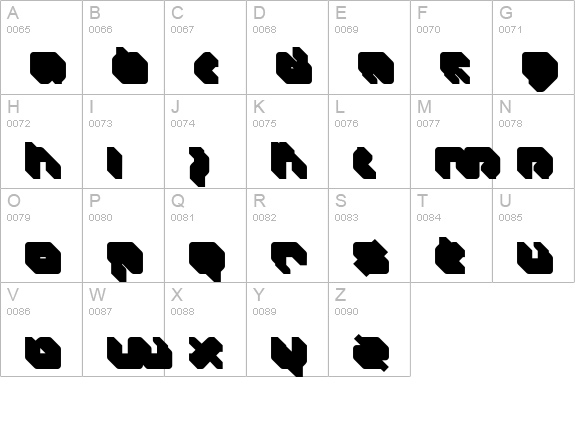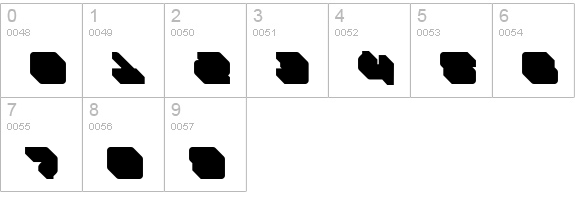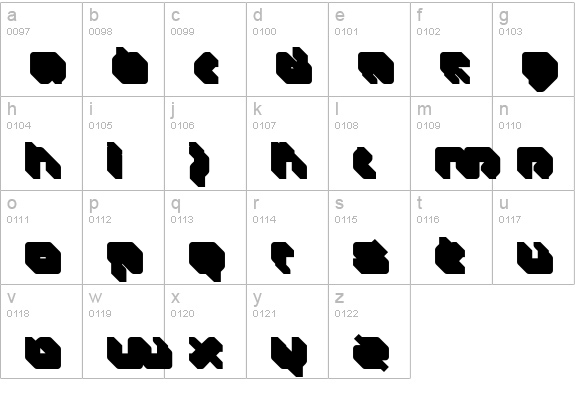
DS Mufdi3DR font is a unique and eye-catching display font that is perfect for creating standout designs. Its three-dimensional effect adds depth and dimension to any project, making it ideal for titles, logos, posters, and more. This font is bold, modern, and sure to make a statement. The best part is, DS Mufdi3DR font is completely free to download at FontsMarket.com. You can easily add this striking font to your collection without any cost, allowing you to unleash your creativity without limitations. Don't miss out on this fantastic opportunity to enhance your designs with the DS Mufdi3DR font – download it today and see the difference it can make!